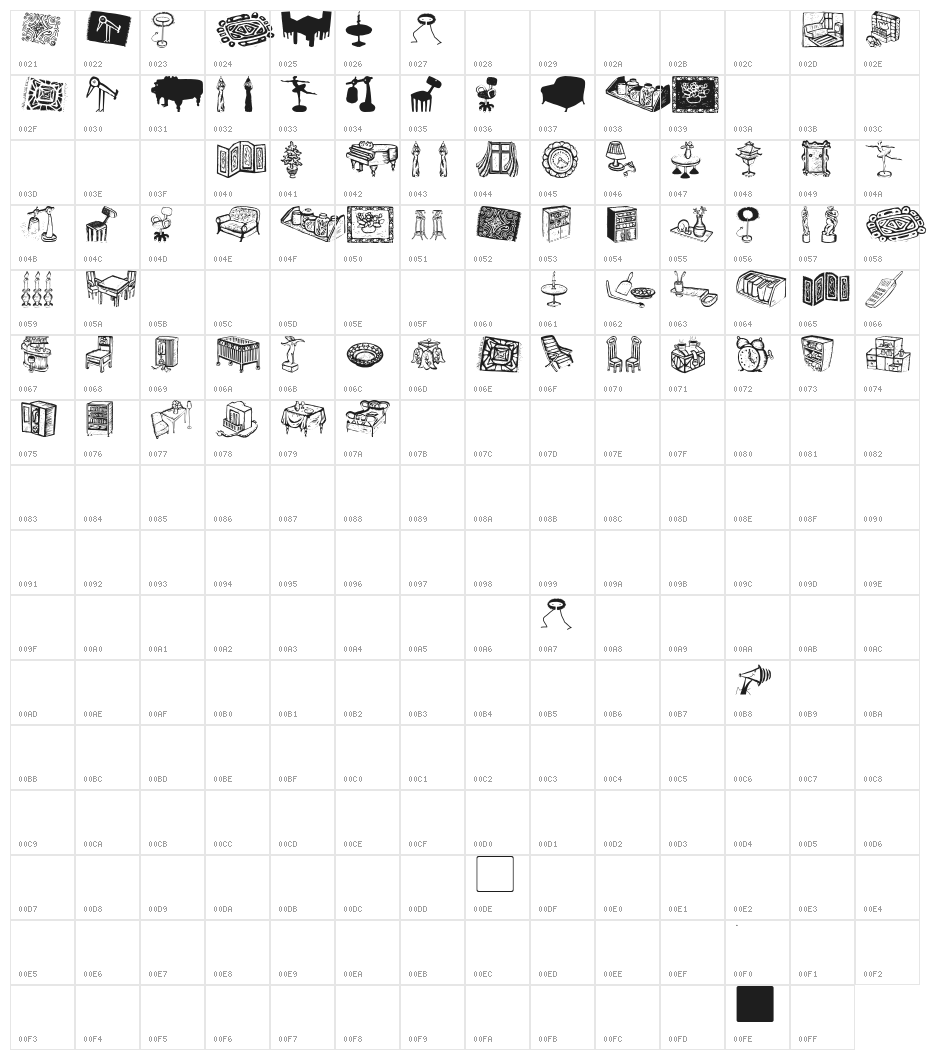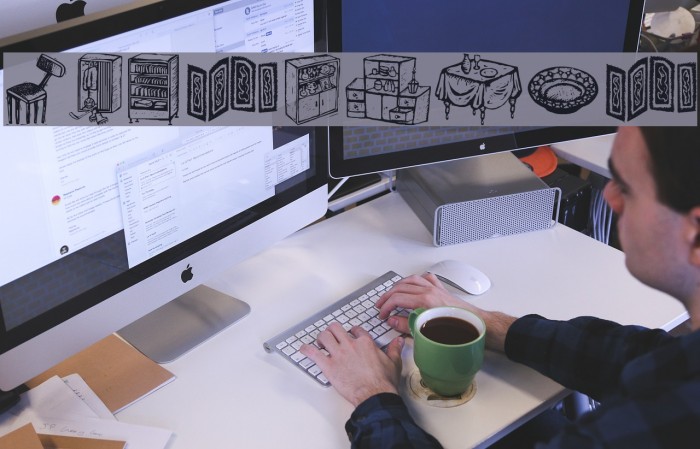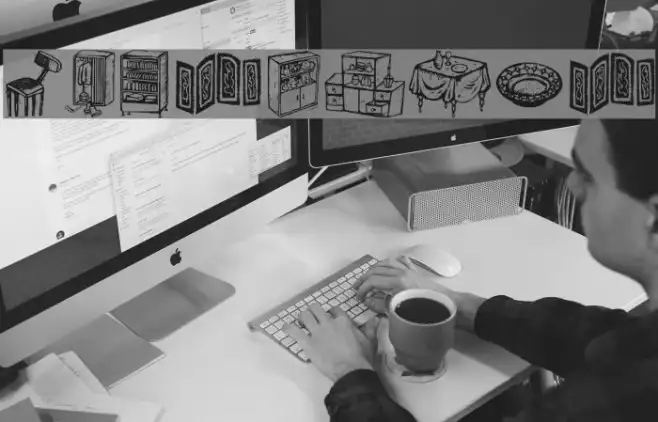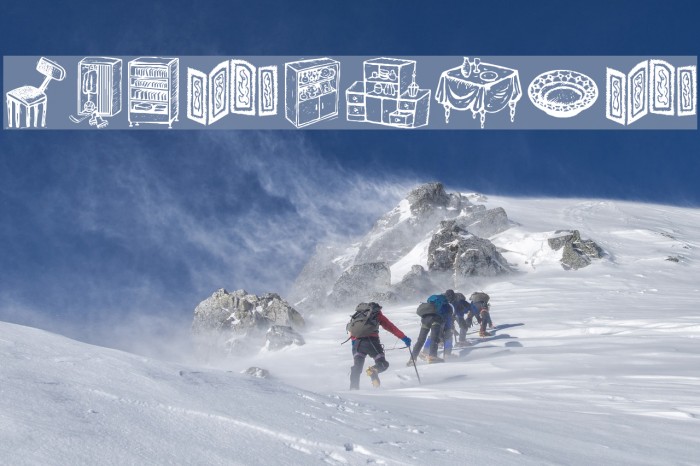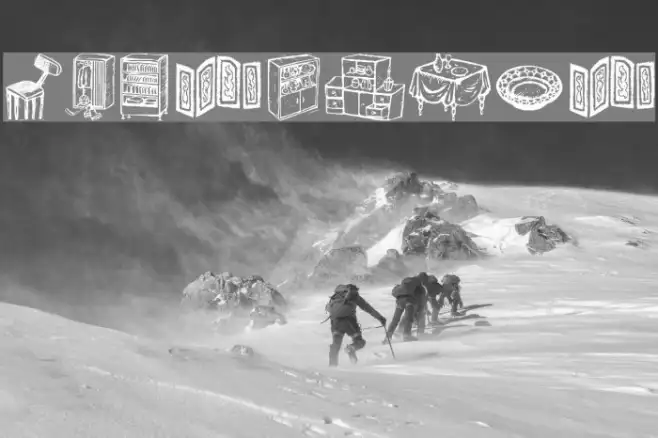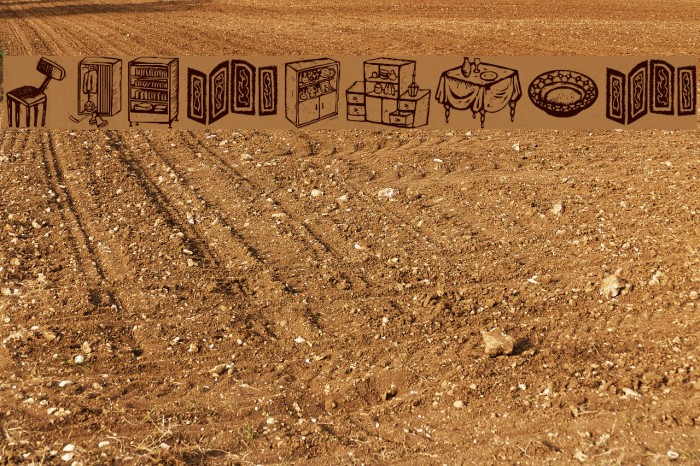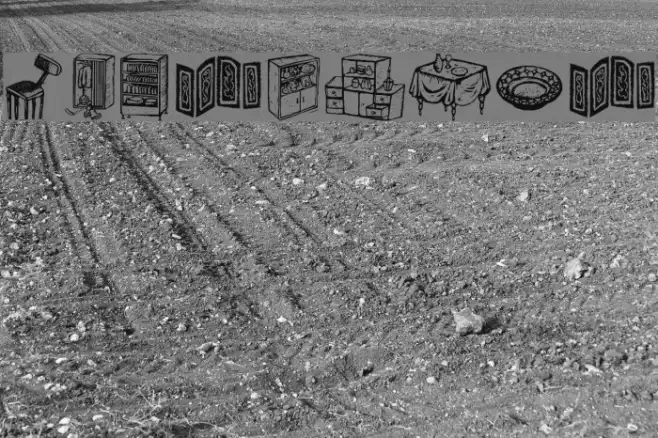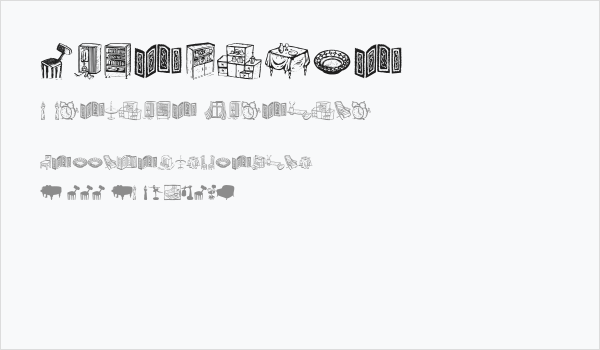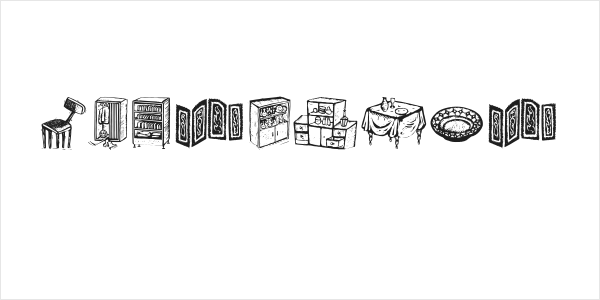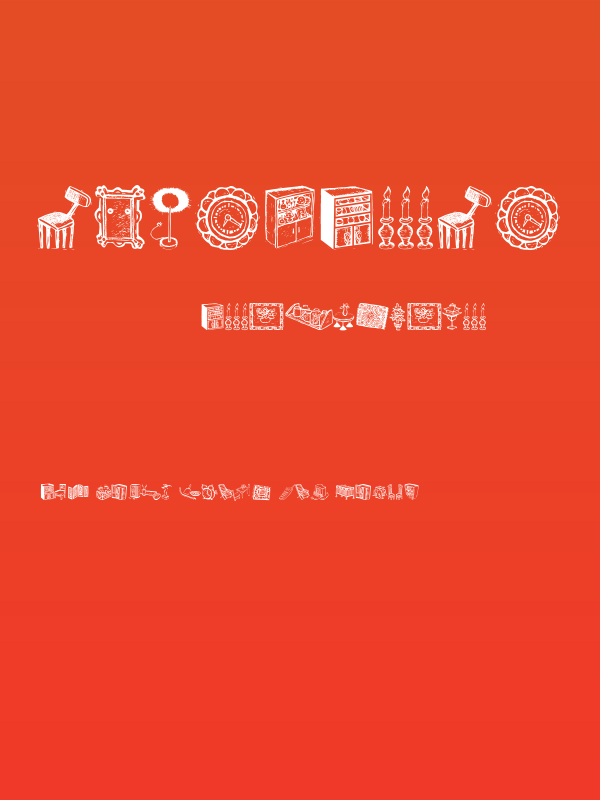
LiveStyle Font
LiveStyle Description
A decorative display font composed of hand-drawn illustrations of various furniture and home decor items, each character represented by a unique sketch. The style is whimsical and playful, with detailed line work and a consistent black-and-white color scheme. The glyphs are irregular in shape and size, contributing to an eclectic and artistic appearance.
| Overall Style | Decorative, Whimsical, Artistic |
| Use Case | Logos, Headlines, Posters, Invitations |
| Proposed Projects | Home decor branding, interior design posters, creative invitations, childrenΓ’β¬β’s books, quirky packaging, lifestyle blogs. |